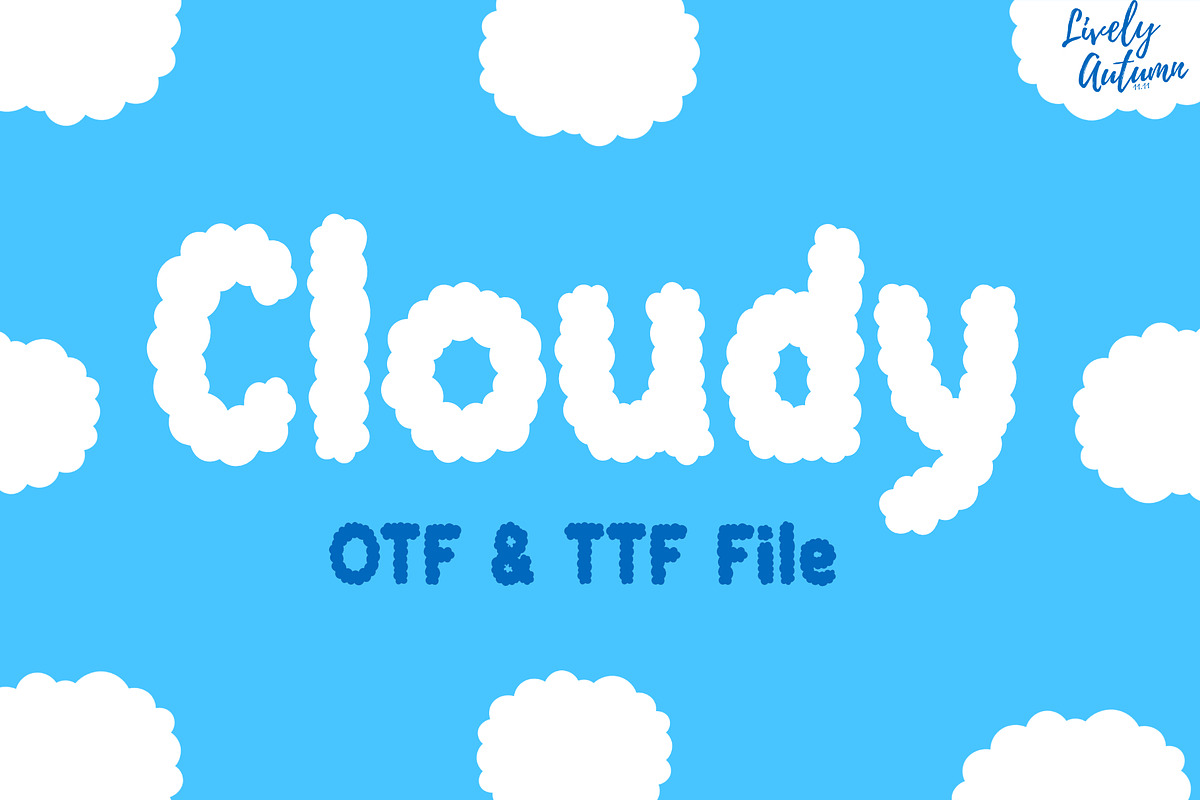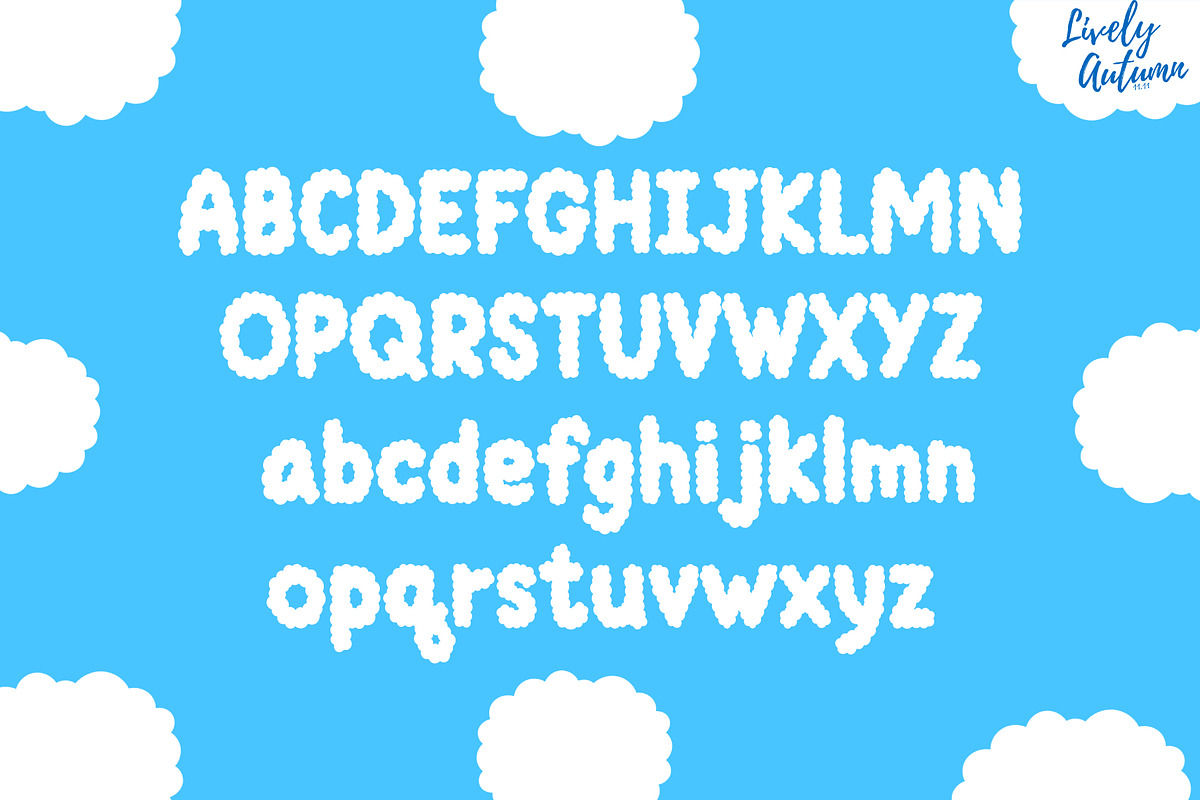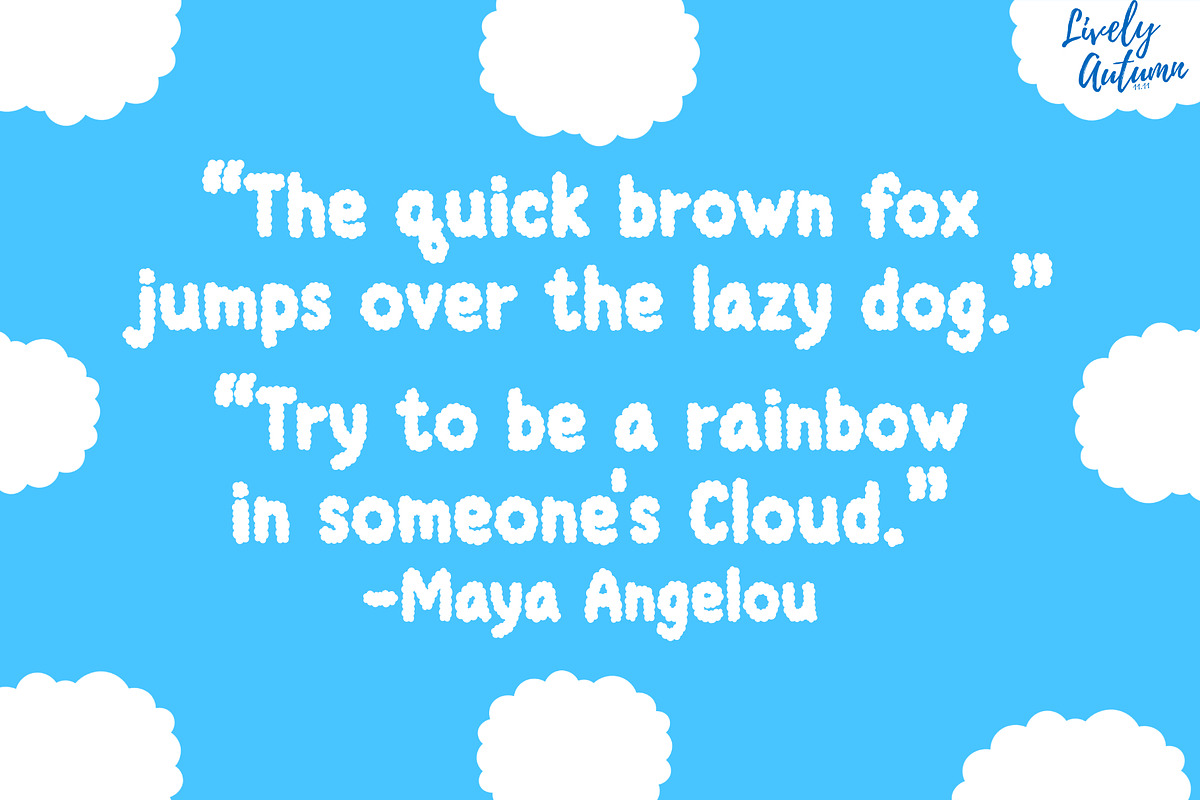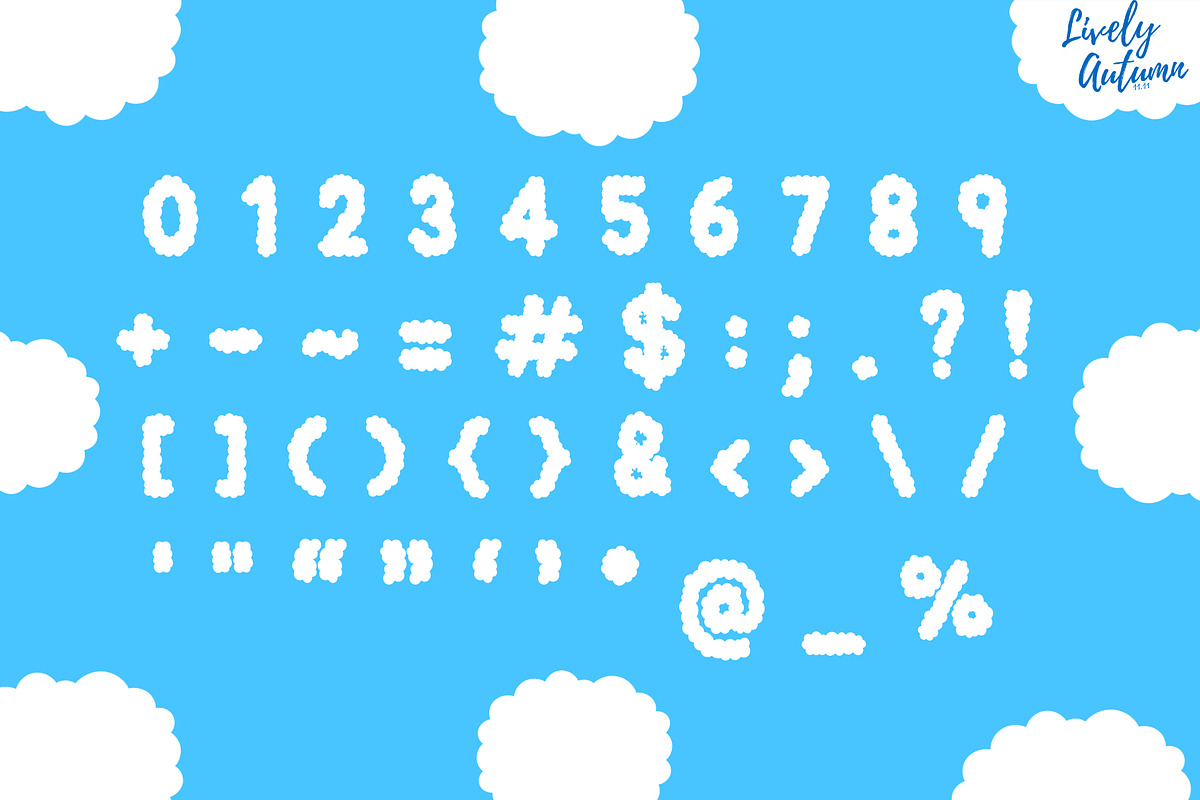
Cloudy Font | Fluffy cloud font
Cloudy Font is a cute, bold Sans Serif handwriting font in a cloud shape. Perfect for your cute-theme projects and various projects. From invitations to posters, social media graphics, journals, and much more.
- Font includes: uppercase, lowercase, numbers, and symbols